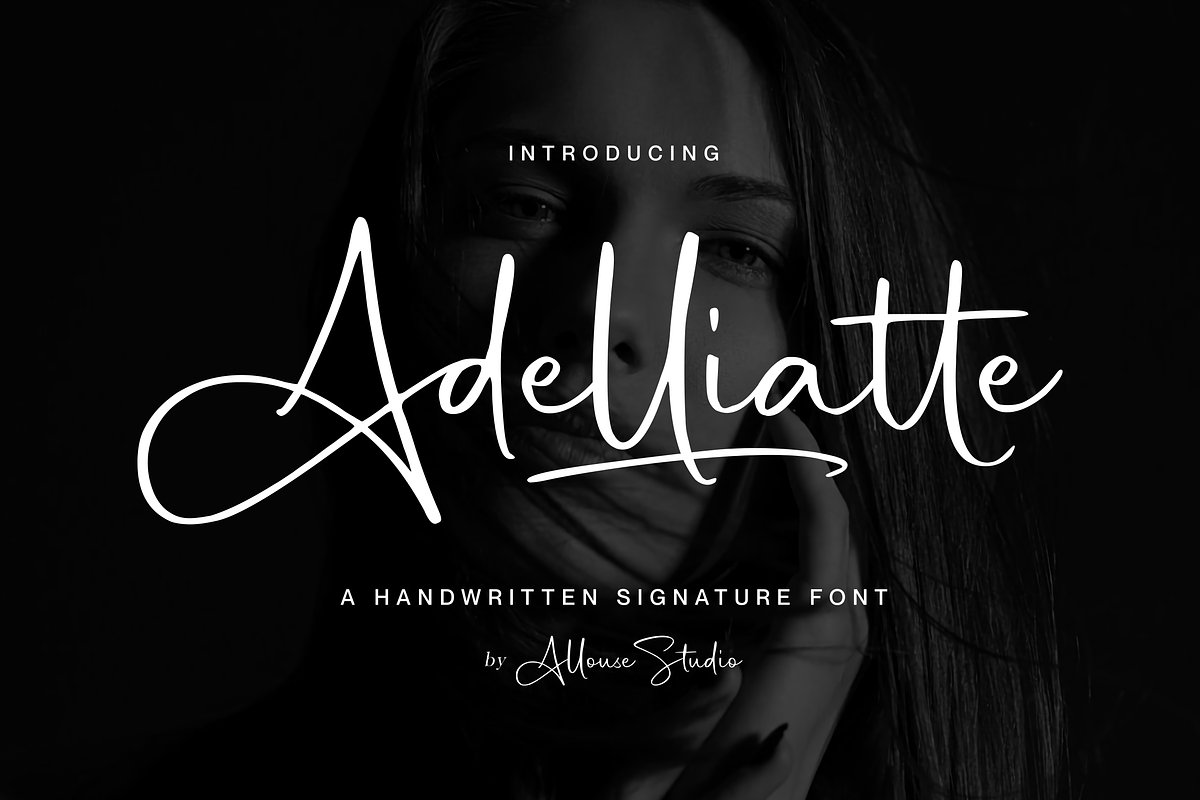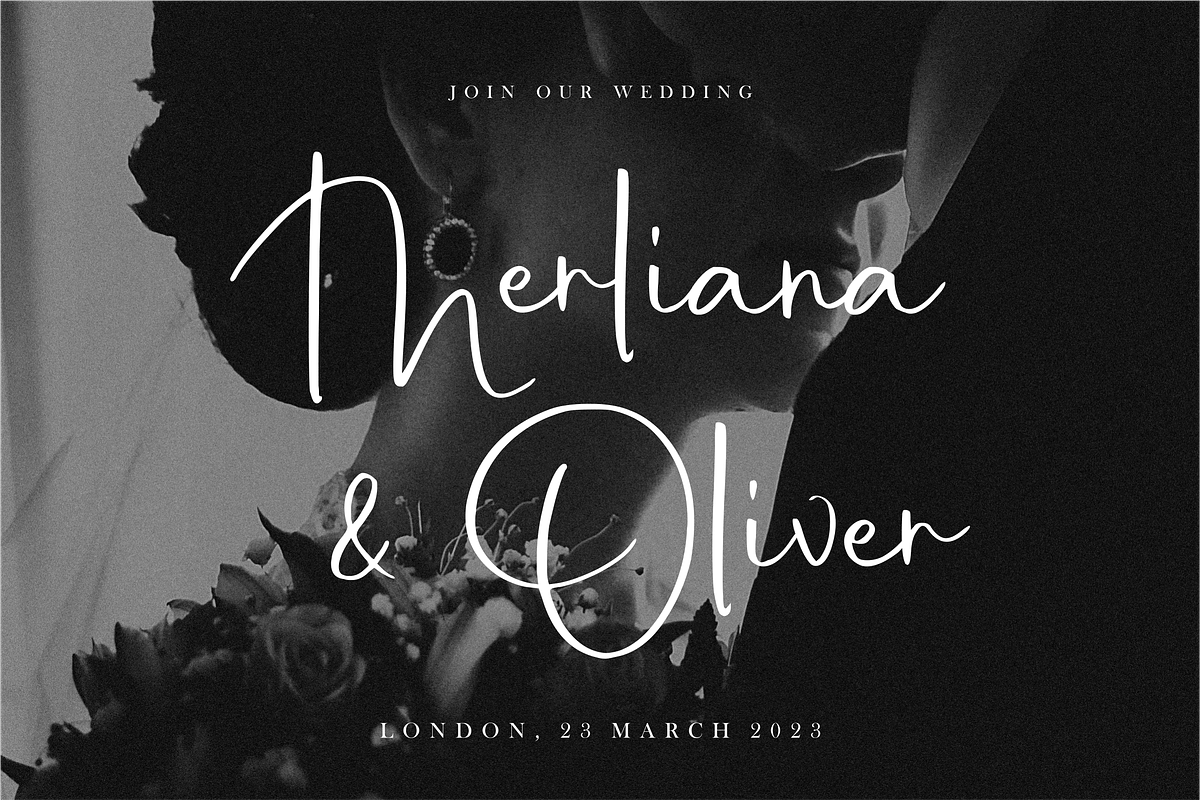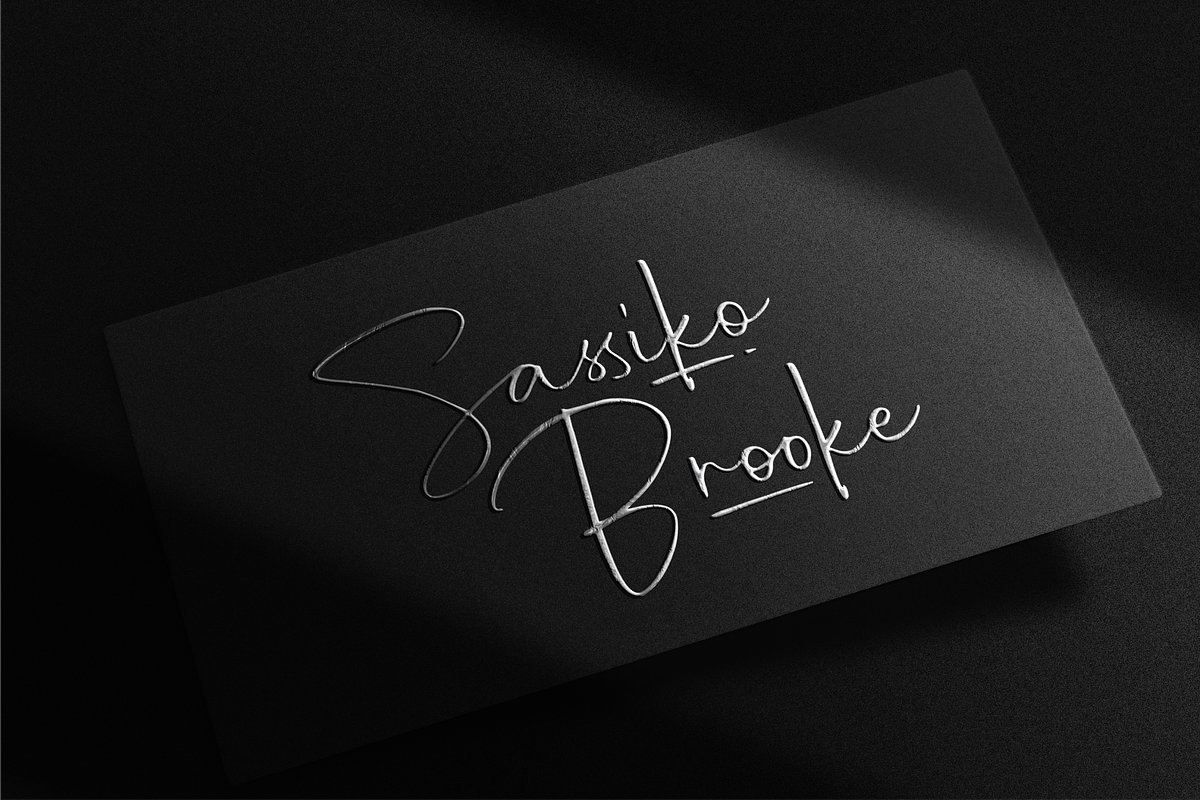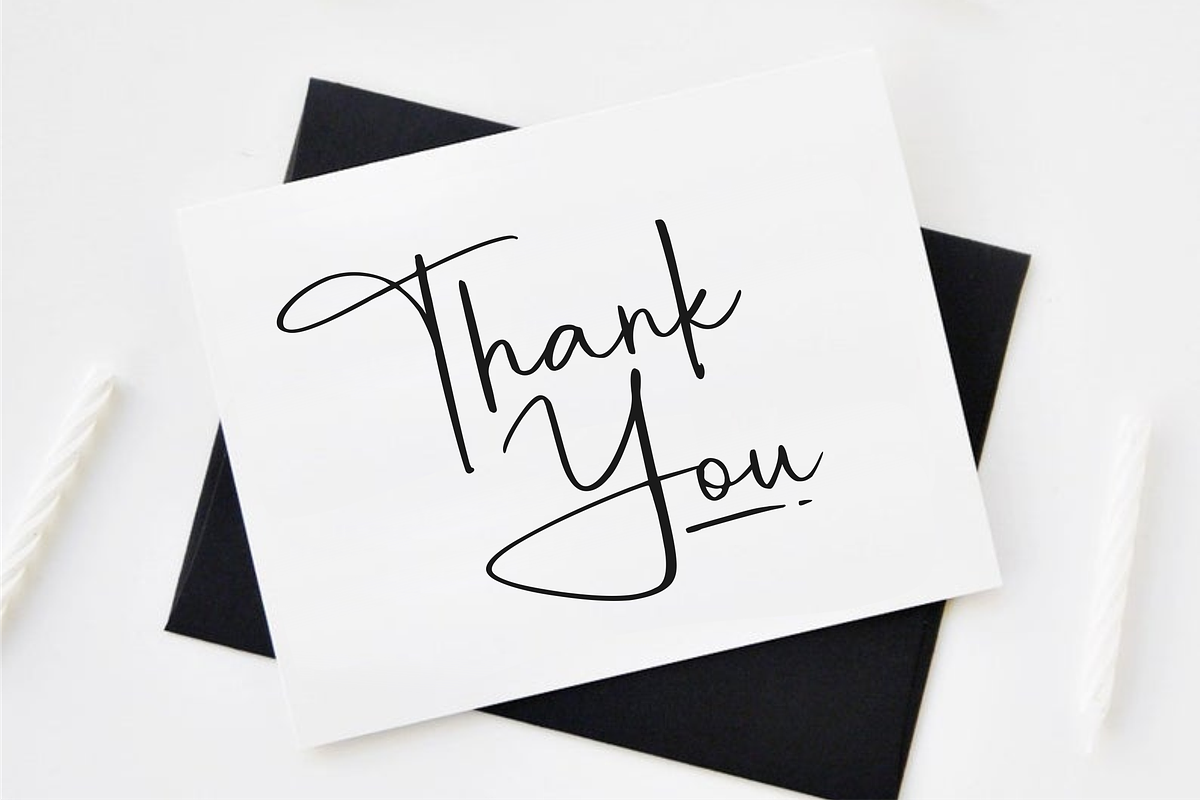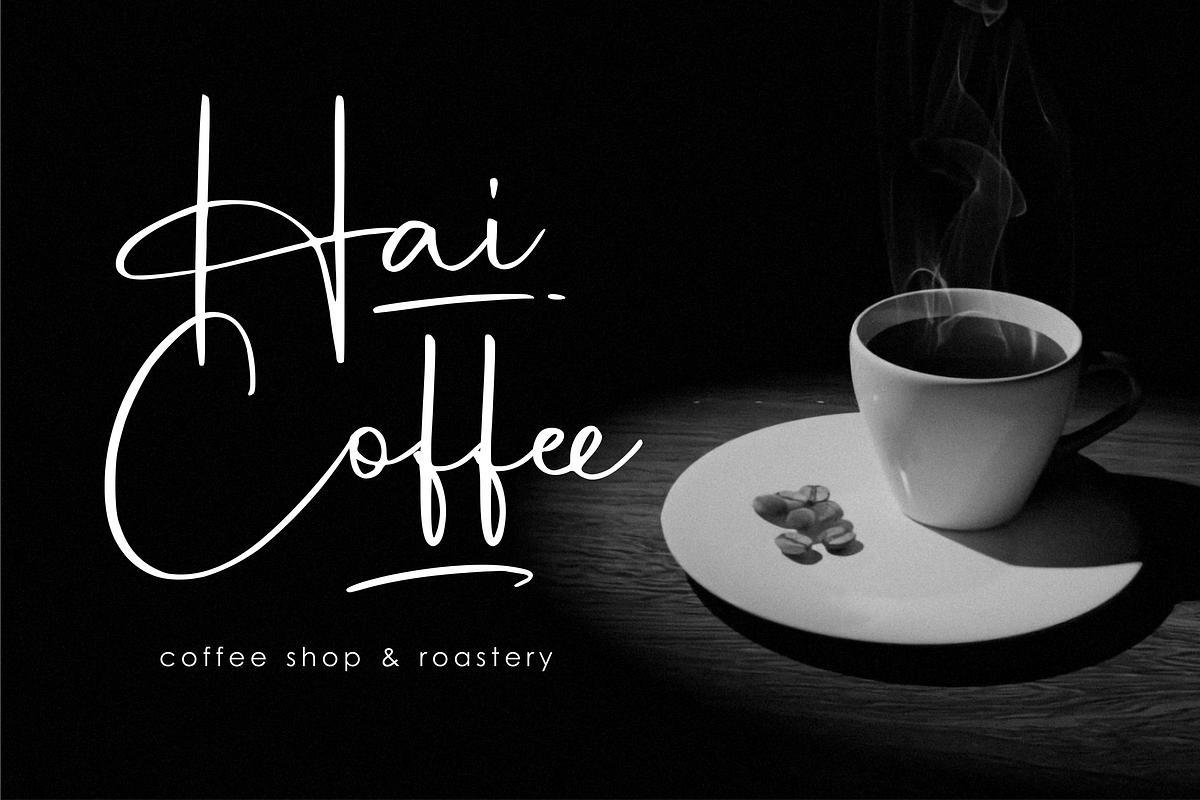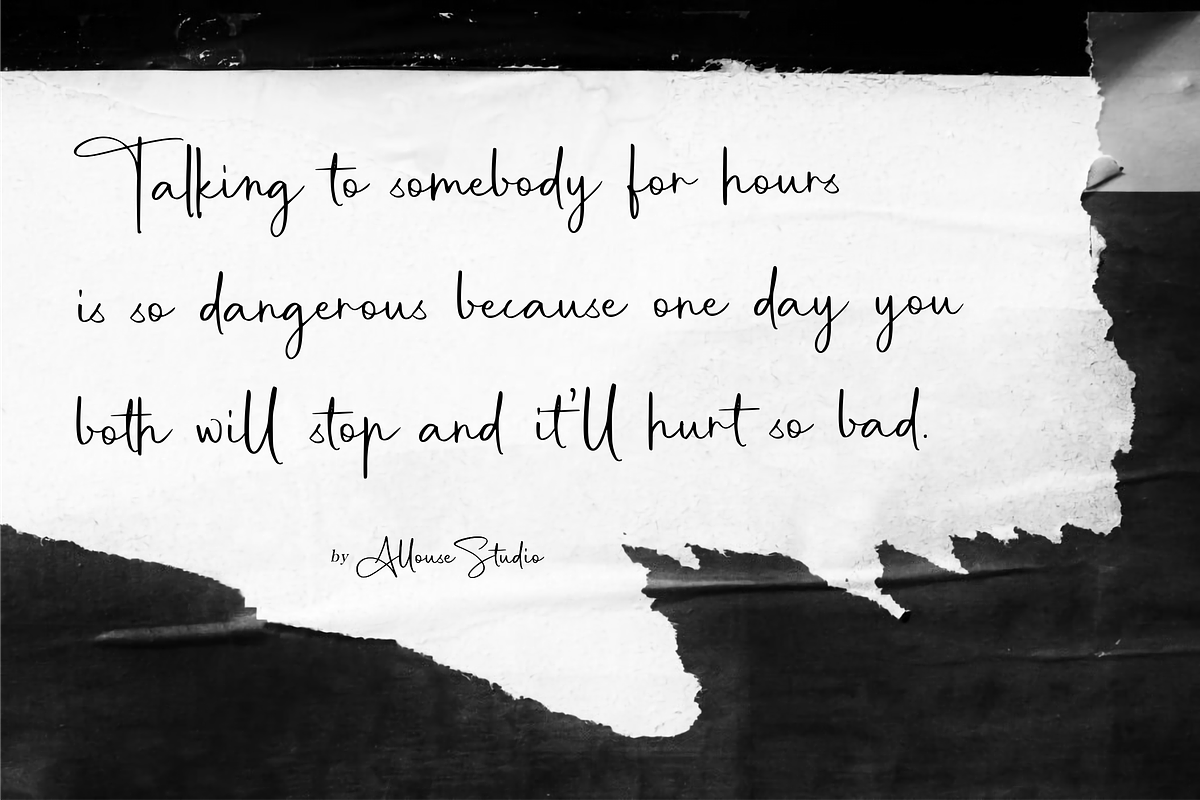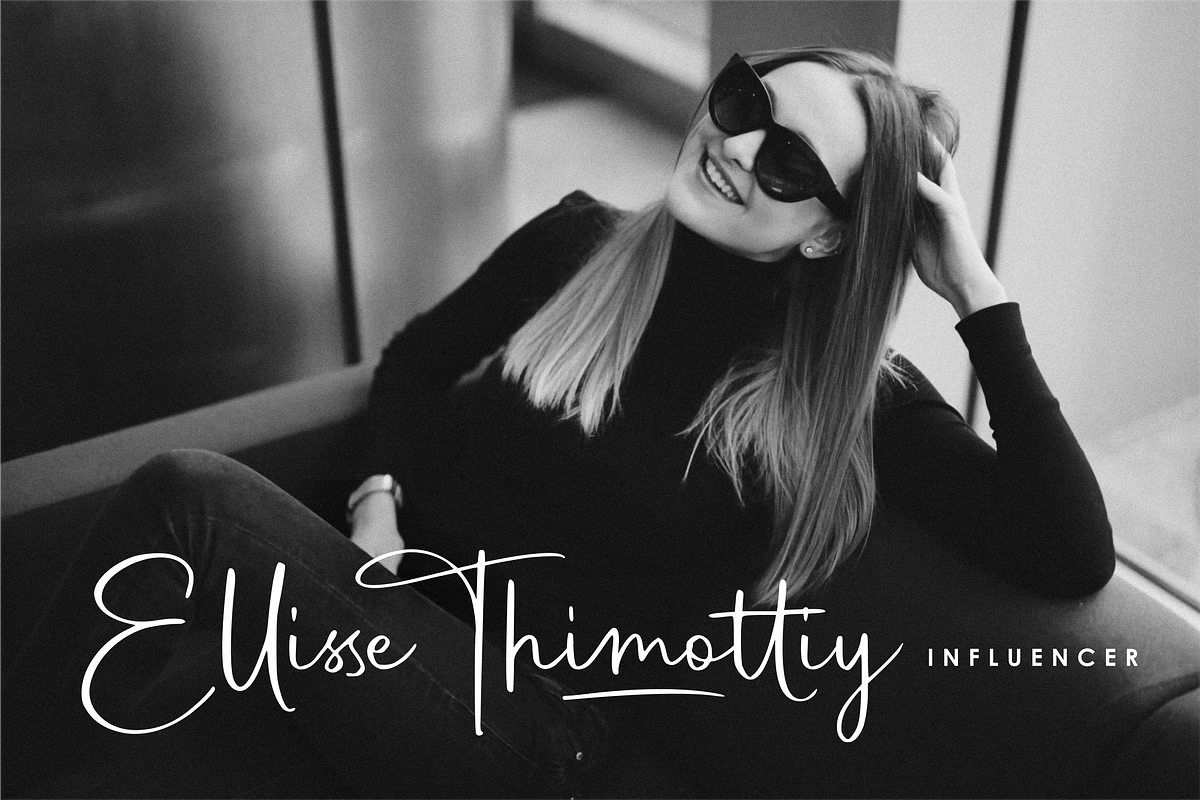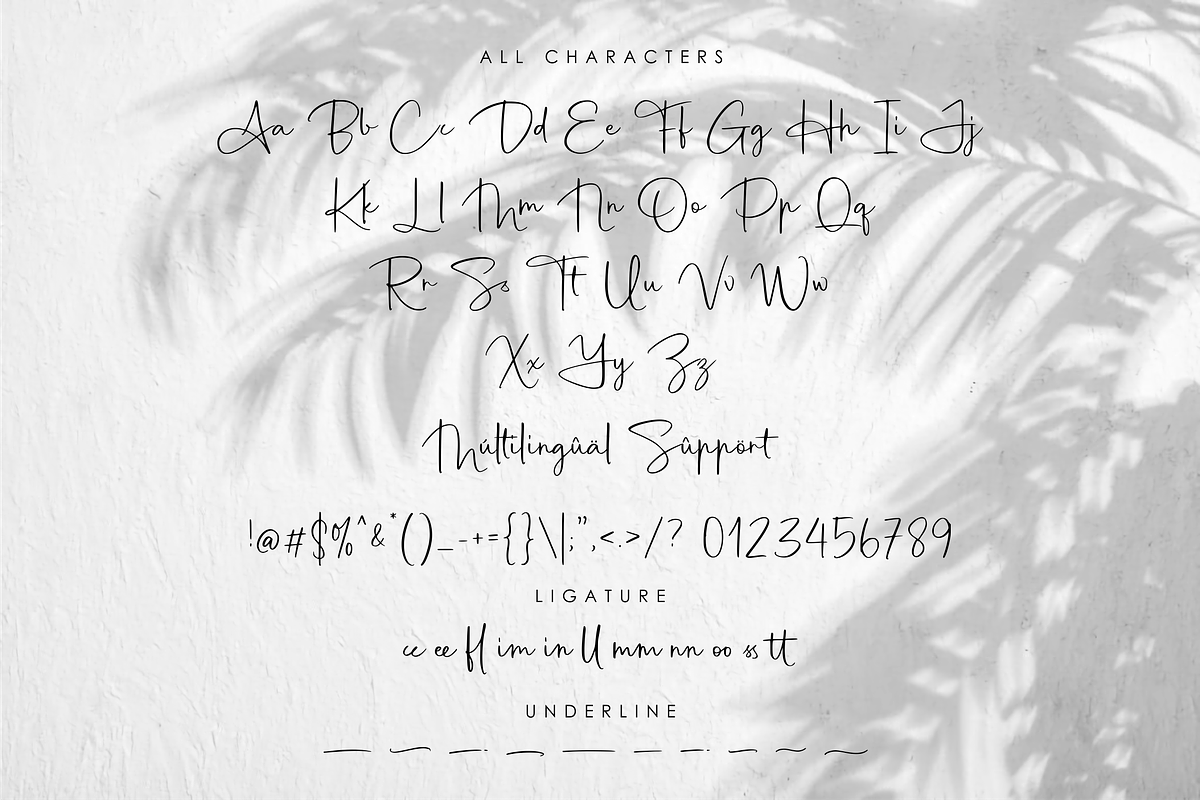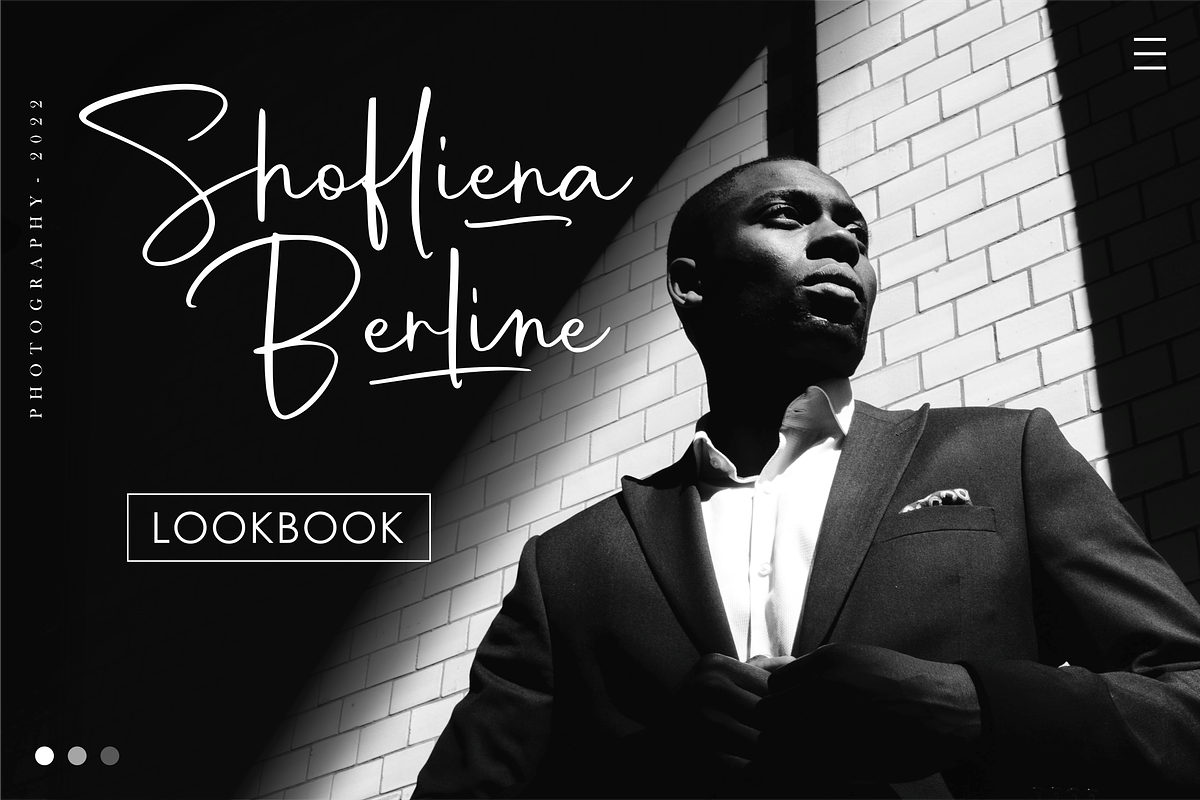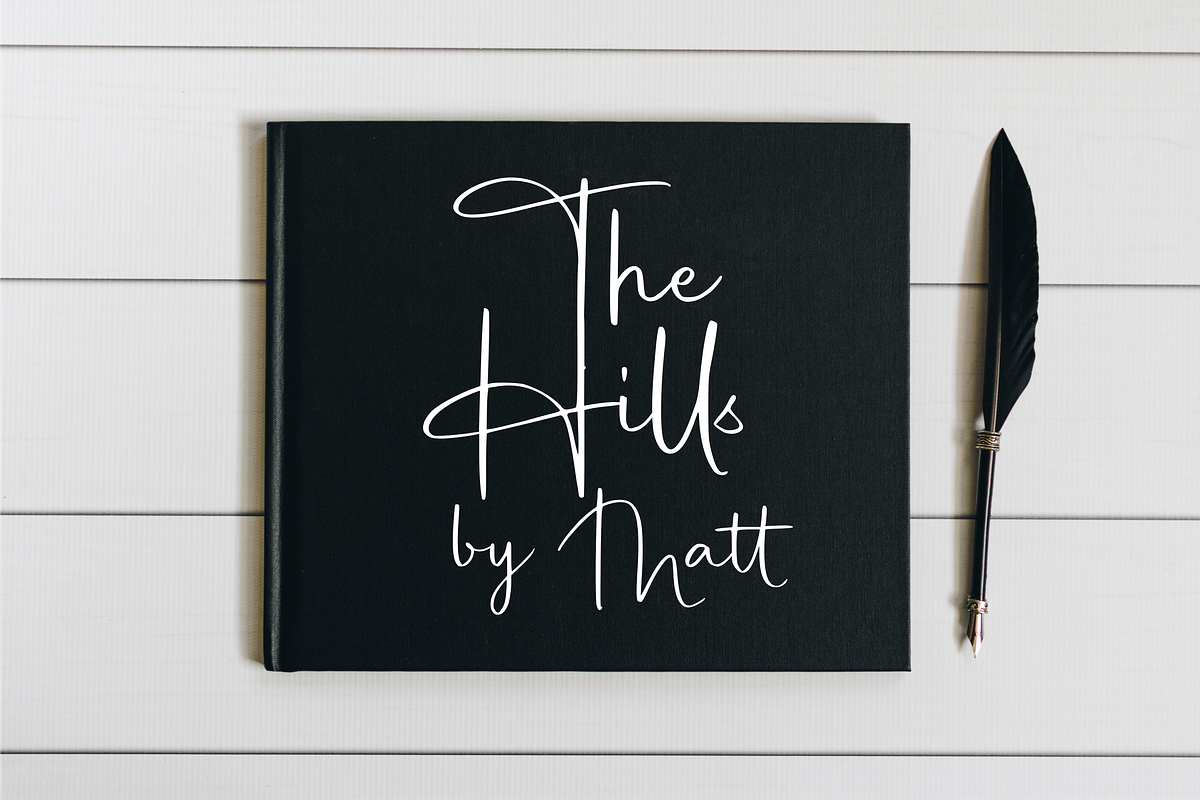
Adelliatte A Handwritten Signature
Proudly Presenting, Adelliatte A Handwritten Signature Font.
Adelliatte is perfect for any titles, logo, product packaging, branding project, megazine, social media, wedding, or just used to express words above the background.
Adelliatte also come with Multi-Lingual Support.